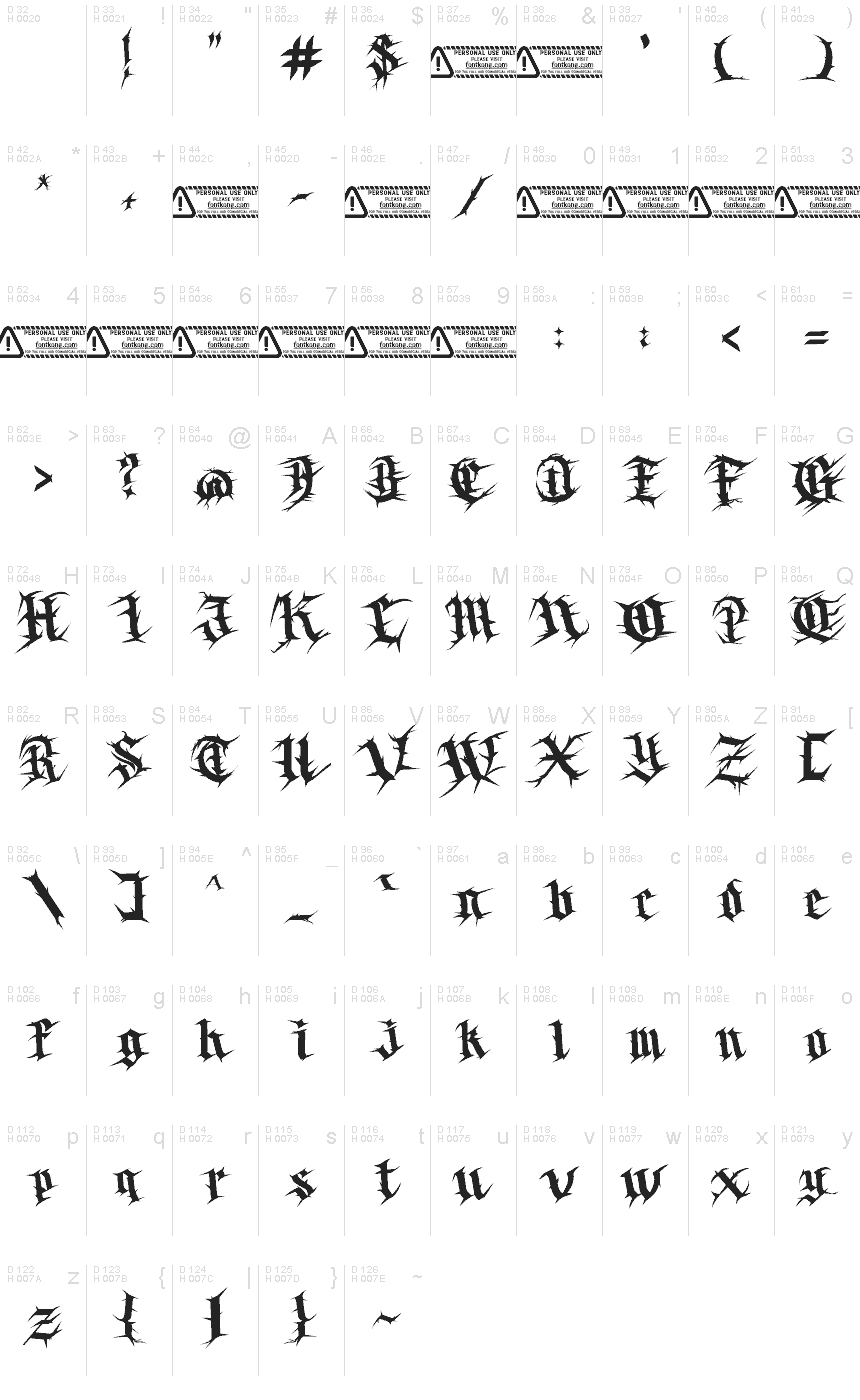
Thorns
Thorns font by Kong Font is a modern gothic typeface with ornate characters that deliver dynamic and interesting presentations. The styles it contains are sharp, aggressive, and medieval-inspired as they introduce a strong and remarkable typography that meets minimal visuals.
An unusual choice for many, this free gothic font will amaze and attract attention to headings in headlines, posters, flyers, business cards, apparel items like backpacks or t-shirts you want printed, social media posts or ads facilities like barber shops and tattoo parlors. It delivers daring designs on invitation cards of extravagant events such as weddings or Halloween parties.